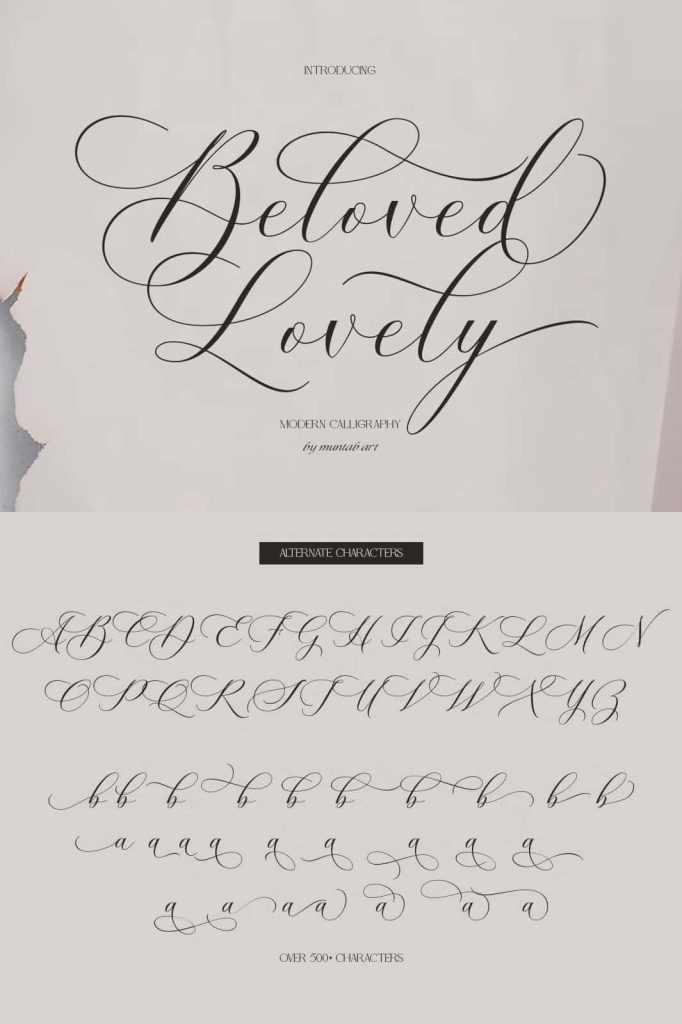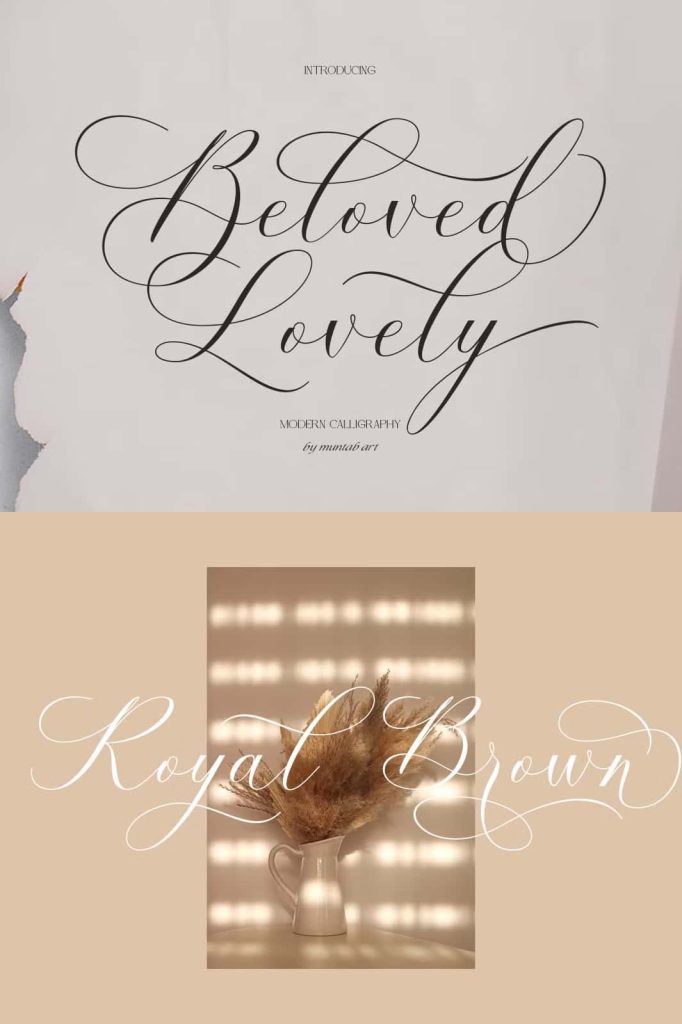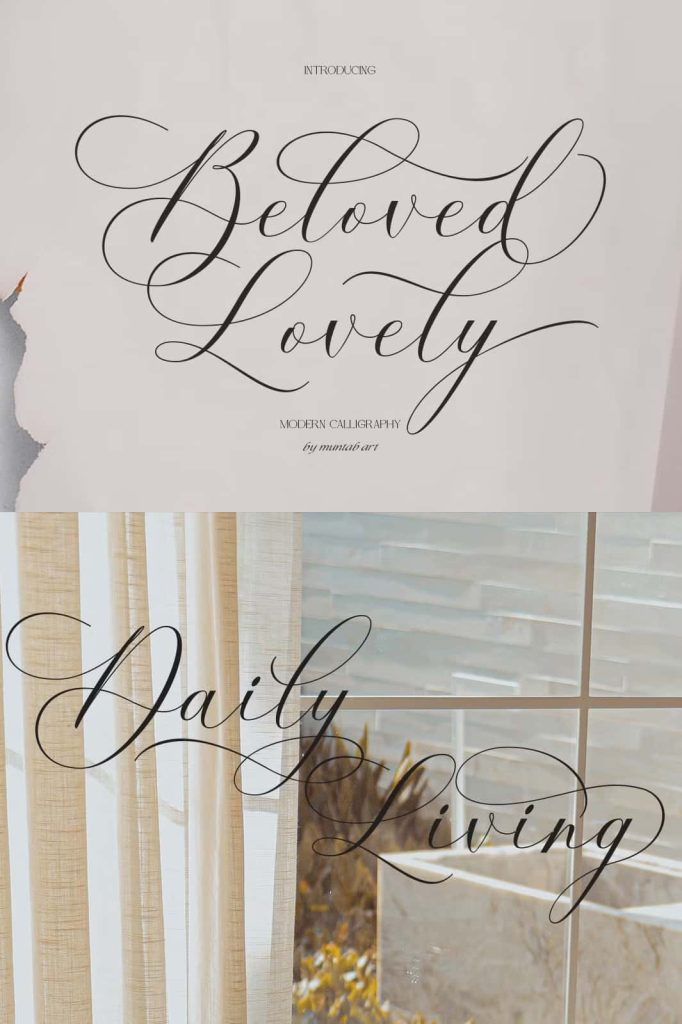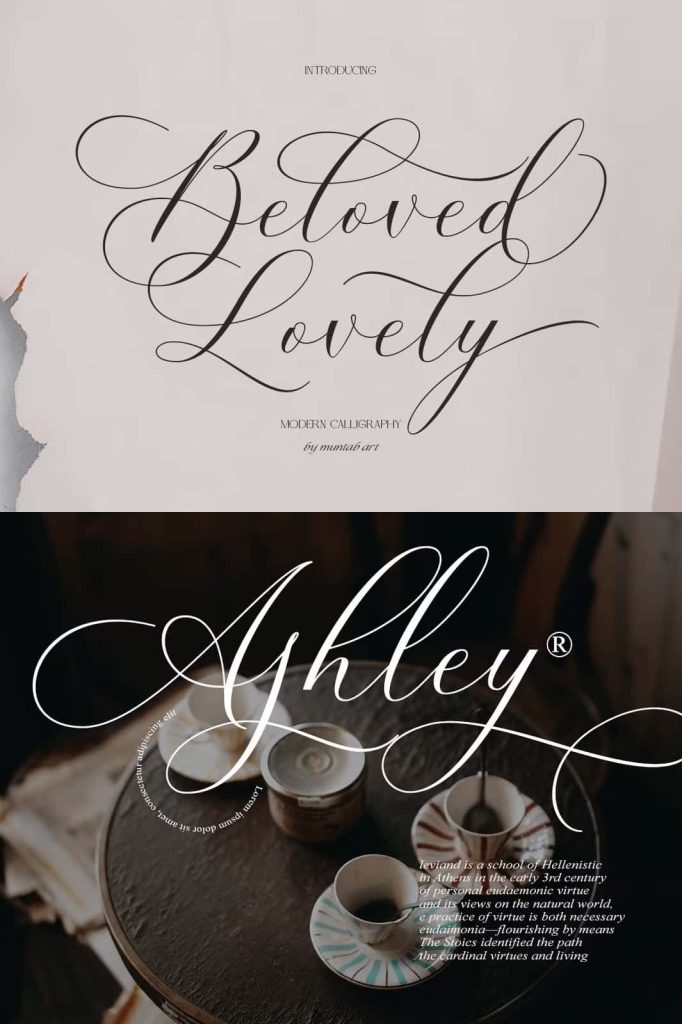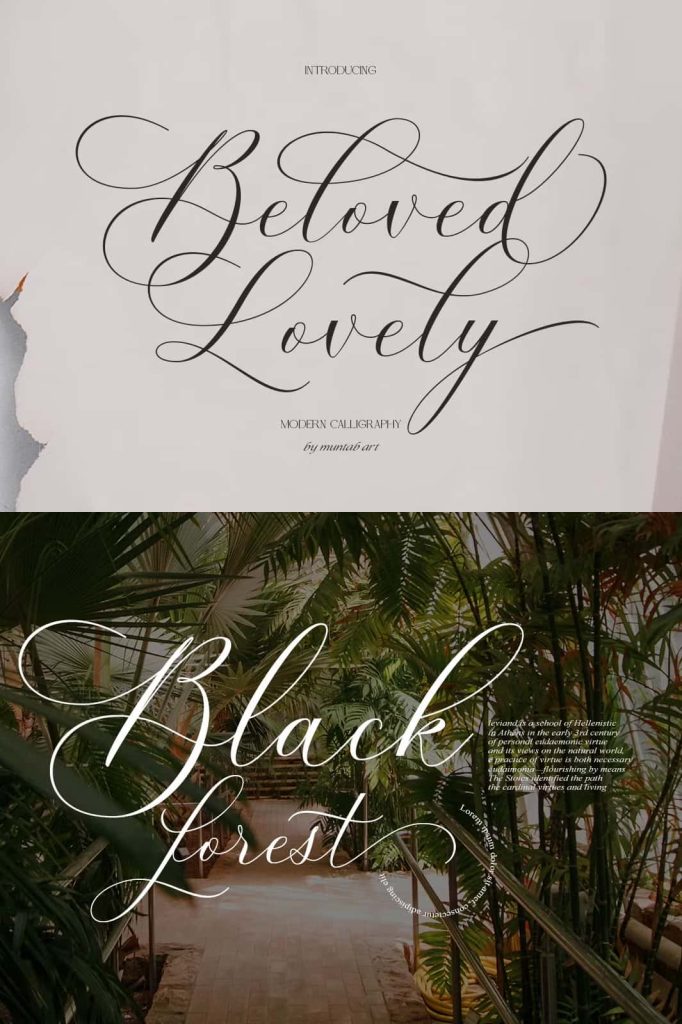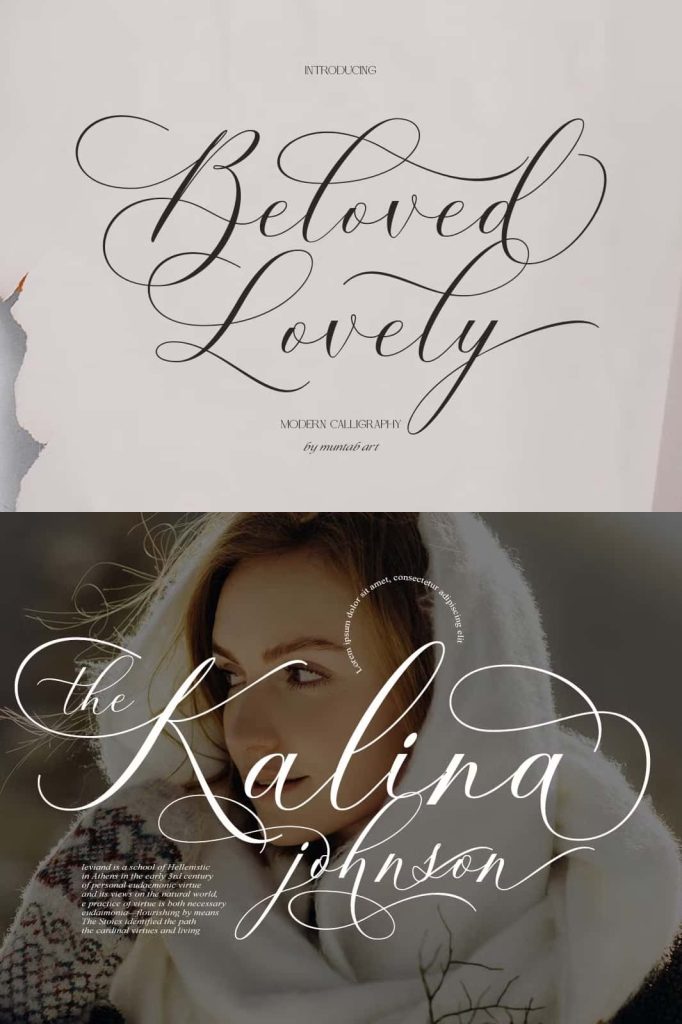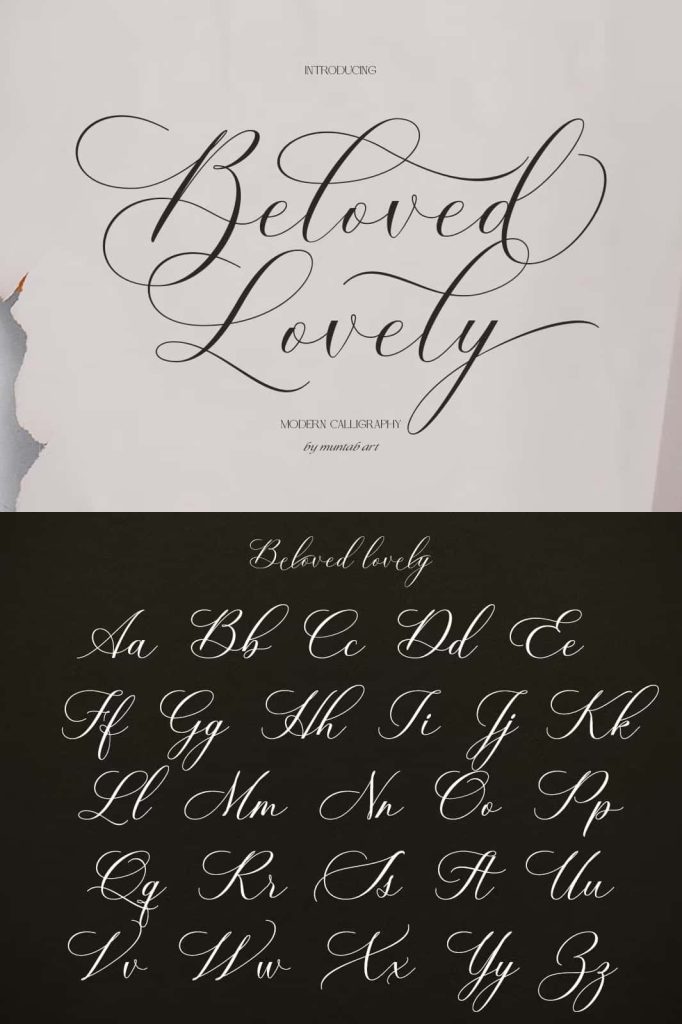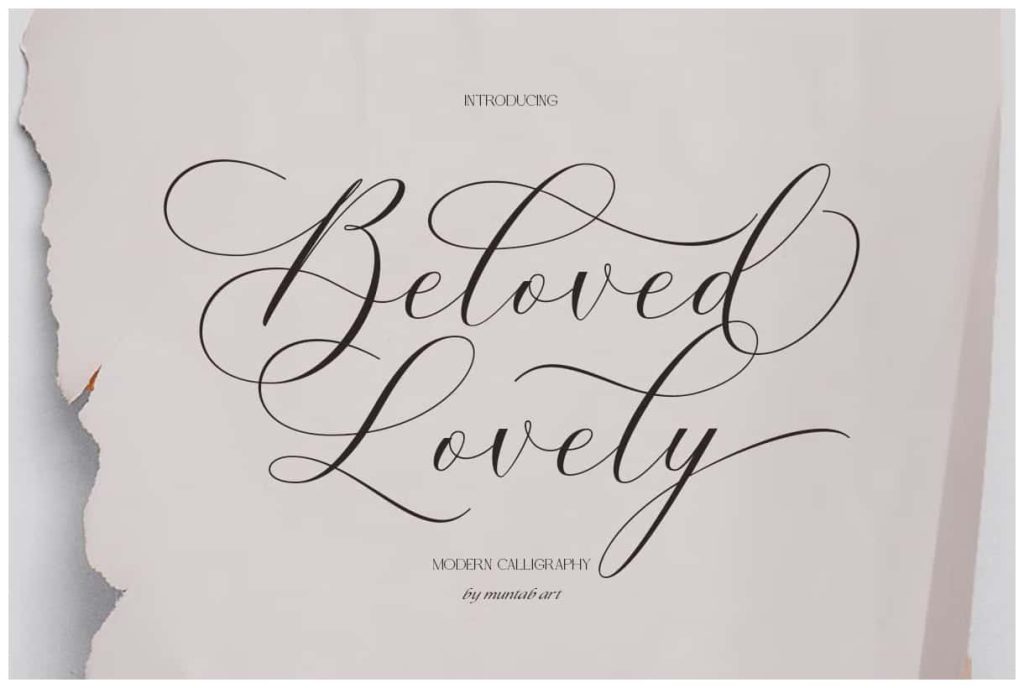
Beloved Lovely | Modern Calligraphy
Introducing our new product the name Beloved Lovely | Modern Calligraphy. Beloved Lovely Fonts includes uppercase and lowercase letters